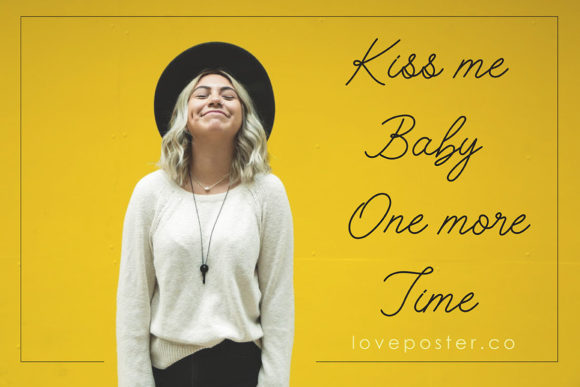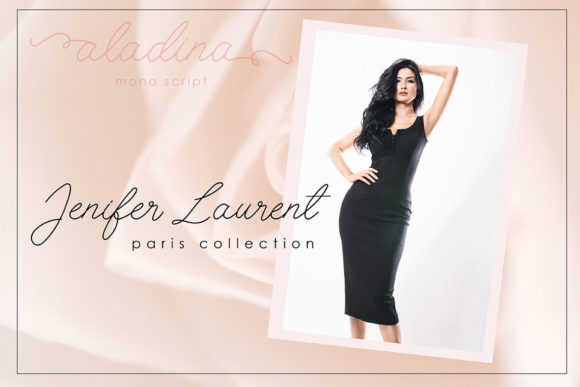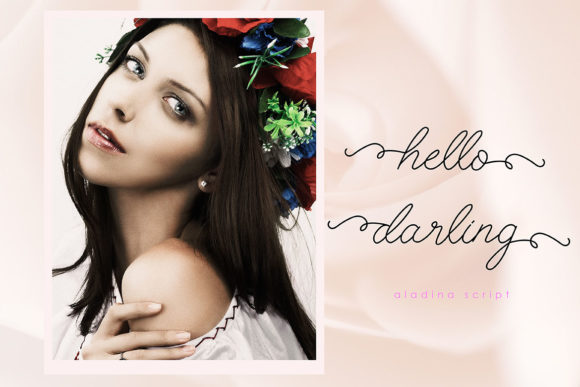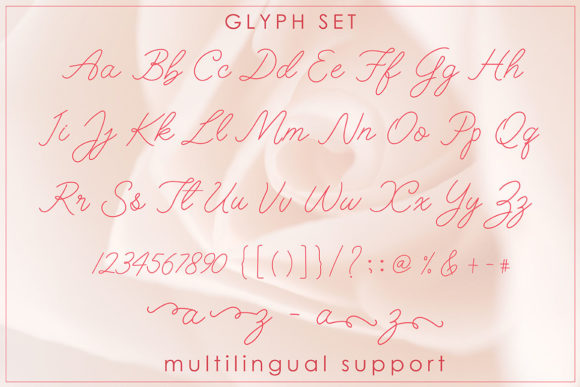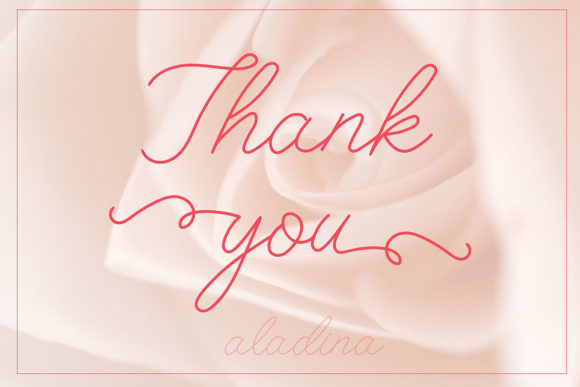
Aladina Font
About Aladina Font
Aladina is a beautiful and bold handwritten font with lots of authenticity! It will effortlessly turn any design idea into a stand out.